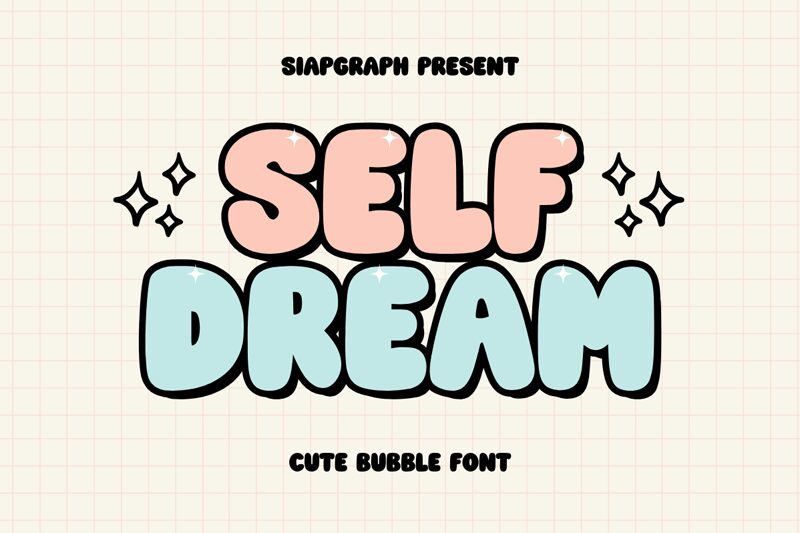
Self Dream font designed by Siapgraph is a free font with a whimsical and cheerful appearance. Its cartoonish bubble-like design is friendly and approachable, capable of adding a modern vibe to any project. The font is informal, youthful, and expressive, with each letter featuring its own quirky element that contributes to its charming overall appearance. It comes in only one style, but with alternates and swashes for a few of the characters.
The font works perfectly for children-related ideas such as school posters, video game covers, or illustrations. Other possible uses include flyers, stand-out packaging, cartoon movie titles, T-shirt print, book covers, or social media content.